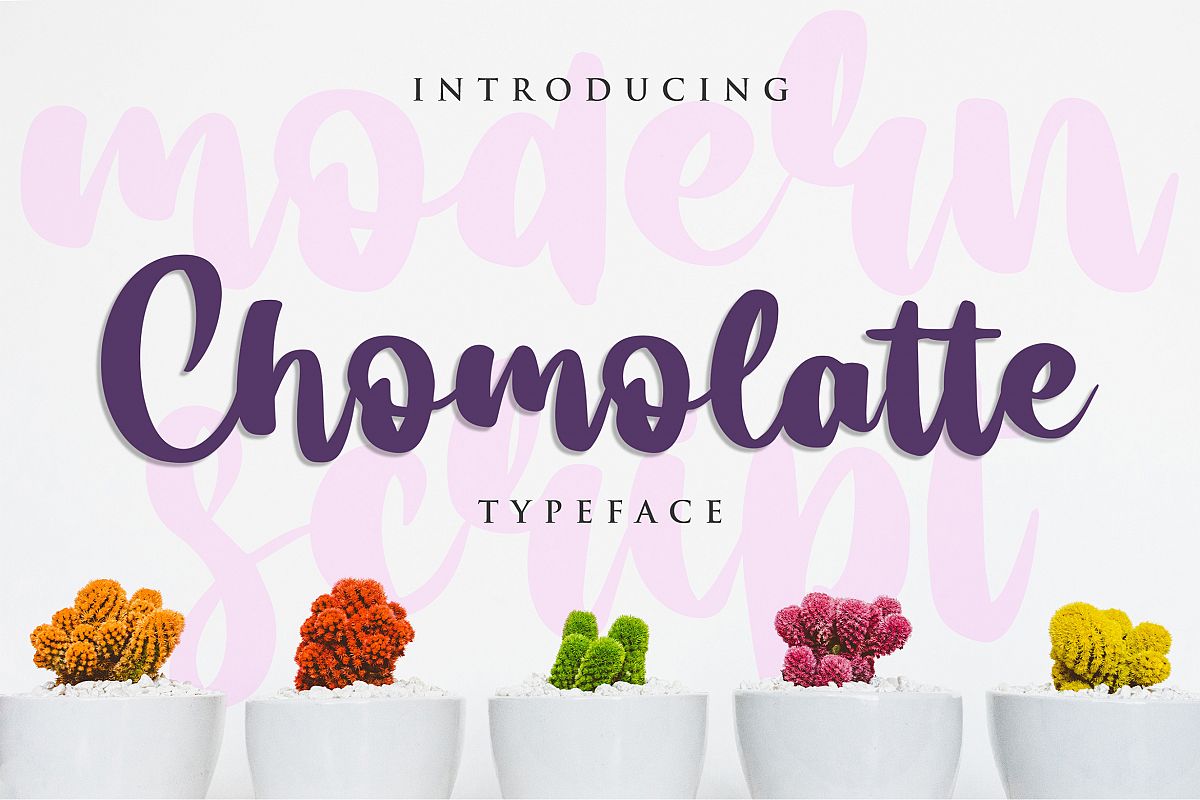
CHOMOLATTE IS MODERN SCRIPT
Introducing of our new product the name is CHOMOLATTE, the modern
script font inspired by modern hand lettering style, CHOMOLATTE font is
good for branding logotype, Packaging, poster, headline, book cover,
Flyer, t-shirt design and any more